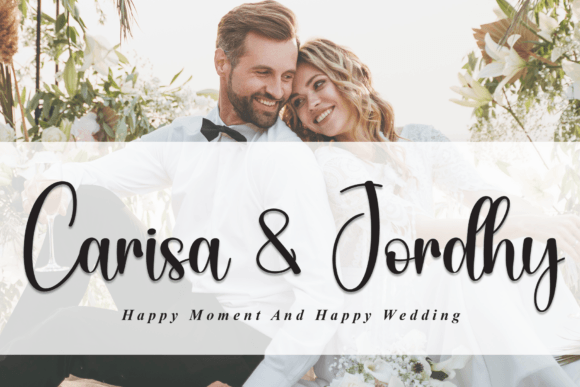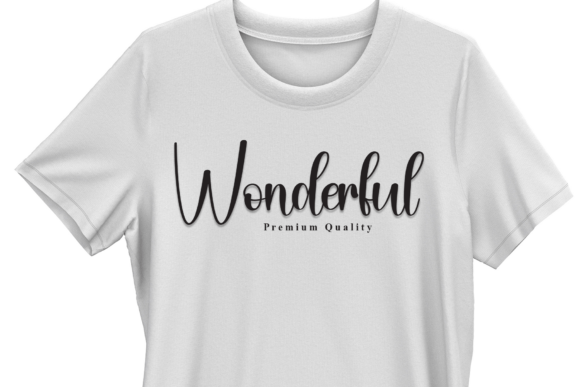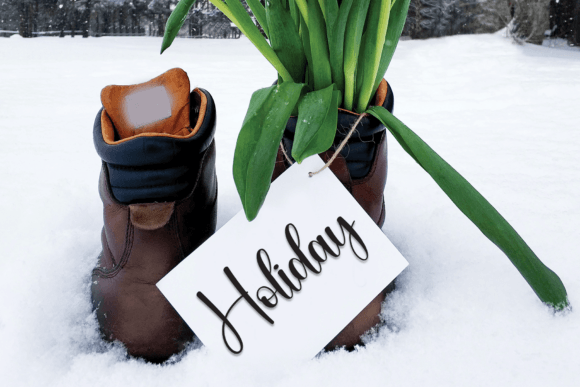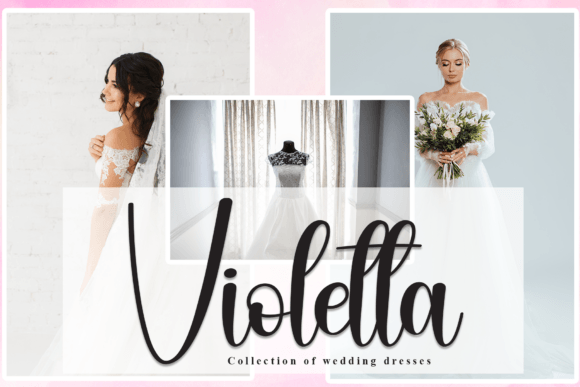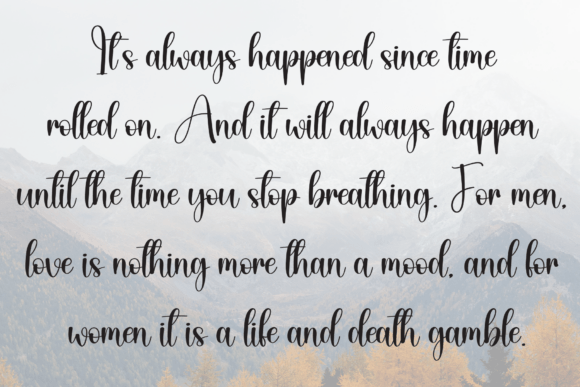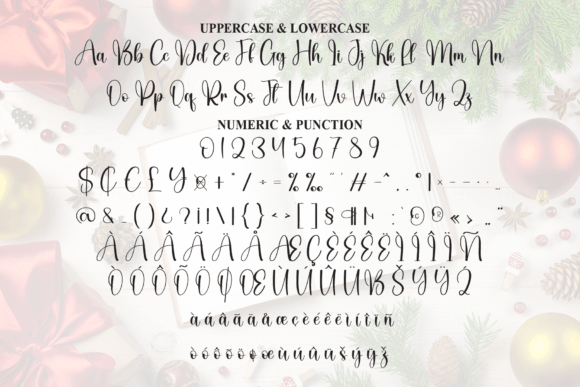
Get into the Holiday Spirit with the Book Christmas Font
As a designer, you know that the right font can make all the difference in capturing the essence of a holiday season. For me, it’s the moment I’m rummaging through my stash of festive fonts, searching for the perfect one to bring some cheer to my holiday projects. And then, I stumble upon the Book Christmas Font – a delightful design that embodies the joy and warmth of the holiday season.
This festive font is a must-have for any designer looking to add a touch of holiday magic to their projects. Featuring the word “Christmas” in a bold, handwritten font, the Book Christmas Font is perfect for creating holiday books, cards, or decorations that exude a sense of warmth and welcome. Whether you’re designing for a client or creating something special for your loved ones, this font is sure to bring a smile to their faces.
Key Features of Book Christmas Font
- Unique Characteristics: Book Christmas Font features a beautiful, handwritten design with intricate details and ornaments, perfect for creating a festive and holiday atmosphere.
Designer Review: Book Christmas Font
Overall, I found the Book Christmas Font to be a charming and unique addition to any holiday design project. ✨ The font’s warm, handwritten feel immediately evokes a cozy winter atmosphere, making it perfect for Christmas cards, invitations, and social media graphics.
The Book Christmas Font features a range of styles, from cursive to script, giving users plenty of options to suit their design needs. ✨ The font’s consistency across different styles is also a plus, making it easy to create a cohesive look across multiple design elements.
- ⚠️ The font may be too cursive for some designs, potentially making text difficult to read.
- ⚠️ Some characters may not be fully compatible with all software or operating systems, which could lead to display issues.
In conclusion, the Book Christmas Font is a lovely choice for holiday designs, but it’s essential to weigh its unique charm against potential readability and compatibility concerns. ✨ With a little creative guidance, this font can add a delightful touch to any winter wonderland-themed project.
Tips for Getting the Most Out of Book Christmas Font
Use Book Christmas Font to add a touch of festive charm to your designs. Consider pairing it with other holiday-themed fonts for a cohesive look.
Experiment with different font sizes and styles to create visual interest and hierarchy in your designs.
Book Christmas Font is perfect for:
- Christmas card designs
- Holiday marketing materials
- Seasonal social media graphics
- Winter-themed party invitations